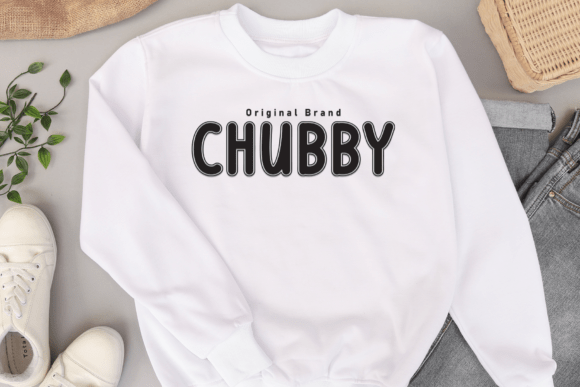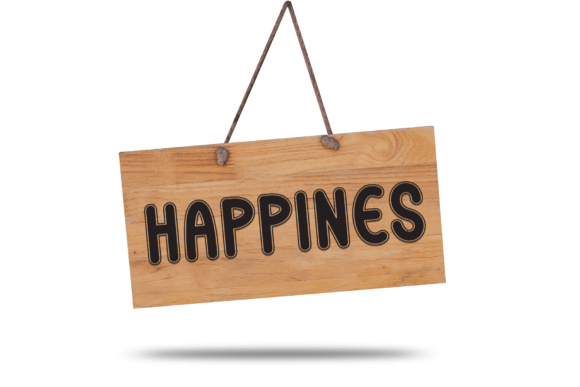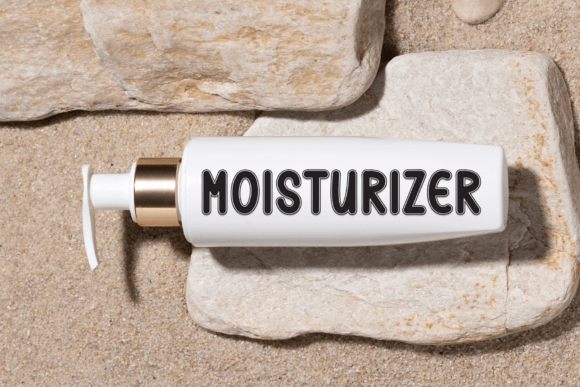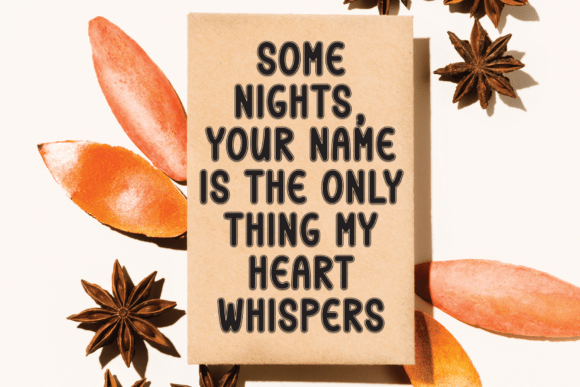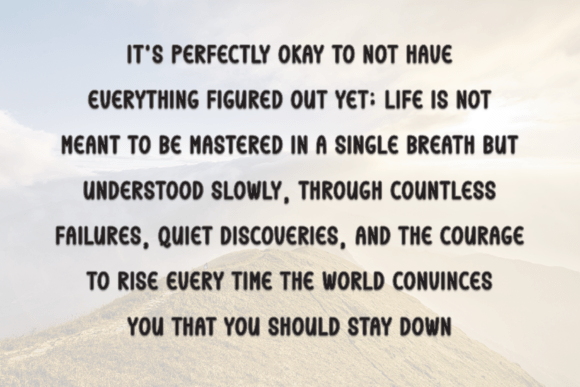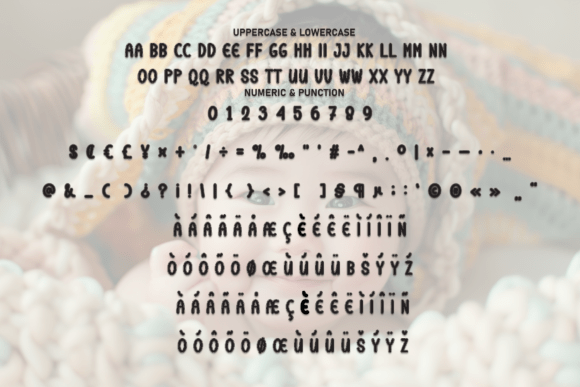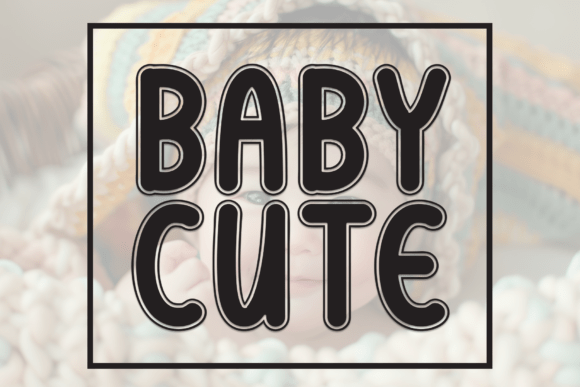
Baby Cute Font: The Ultimate Typeface for Adding Whimsy and Delight to Your Designs
Are you a designer or crafter looking for a font that can add a touch of warmth and joy to your creative projects? Look no further than the Baby Cute Font! This charming, handwritten display font is perfect for anyone seeking to infuse their designs with a sense of playfulness and delight. In this article, we’ll take a closer look at the Baby Cute Font, its features, and how you can use it to elevate your designs.
What is Baby Cute Font?
Baby Cute Font is a whimsical, handwritten display font that is designed to convey a sense of warmth and joy. With its vibrant and endearing style, this font is perfect for a wide range of creative projects, from wedding invitations and greeting cards to social media graphics and craft projects. The font’s playful and carefree design makes it an excellent choice for anyone looking to add a dash of excitement and energy to their designs.
Key Features of Baby Cute Font
So, what makes Baby Cute Font so special? Here are just a few of its key features:
- Whimsical design: Baby Cute Font features a playful, handwritten design that is sure to capture the attention of your audience.
- Vibrant and endearing style: The font’s vibrant and endearing style makes it perfect for designs that require a touch of warmth and personality.
- Highly versatile: Baby Cute Font can be used for a wide range of creative projects, from wedding invitations and greeting cards to social media graphics and craft projects.
- Easily readable: Despite its playful design, Baby Cute Font is highly readable, making it perfect for both digital and print designs.
How to Use Baby Cute Font in Your Designs
Now that we’ve covered the basics of Baby Cute Font, let’s take a look at how you can use it in your designs. Here are a few ideas to get you started:
- Wedding invitations: Add a touch of whimsy and romance to your wedding invitations with Baby Cute Font.
- Greeting cards: Use Baby Cute Font to create playful and personalized greeting cards for special occasions.
- Social media graphics: Add a dash of excitement and energy to your social media graphics with Baby Cute Font.
- Craft projects: Use Baby Cute Font to add a personal touch to your craft projects, such as handmade cards, scrapbook pages, and DIY decorations.
Tips for Getting the Most Out of Baby Cute Font
To get the most out of Baby Cute Font, here are a few tips to keep in mind:
- Use it sparingly: While Baby Cute Font is perfect for adding a touch of whimsy to your designs, it’s best to use it sparingly to avoid overwhelming your audience.
- Pair it with other fonts: Experiment with pairing Baby Cute Font with other fonts to create a unique and visually appealing design.
- Experiment with colors: Don’t be afraid to experiment with different colors and textures to add depth and interest to your designs.
In conclusion, Baby Cute Font is a versatile and charming typeface that is perfect for adding a touch of warmth and joy to your designs. With its whimsical design, vibrant and endearing style, and highly readable format, this font is ideal for a wide range of creative projects. Whether you’re a designer or crafter, Baby Cute Font is sure to become a staple in your font collection. So why wait? Download Baby Cute Font today and start infusing your designs with a sense of jovial amusement!